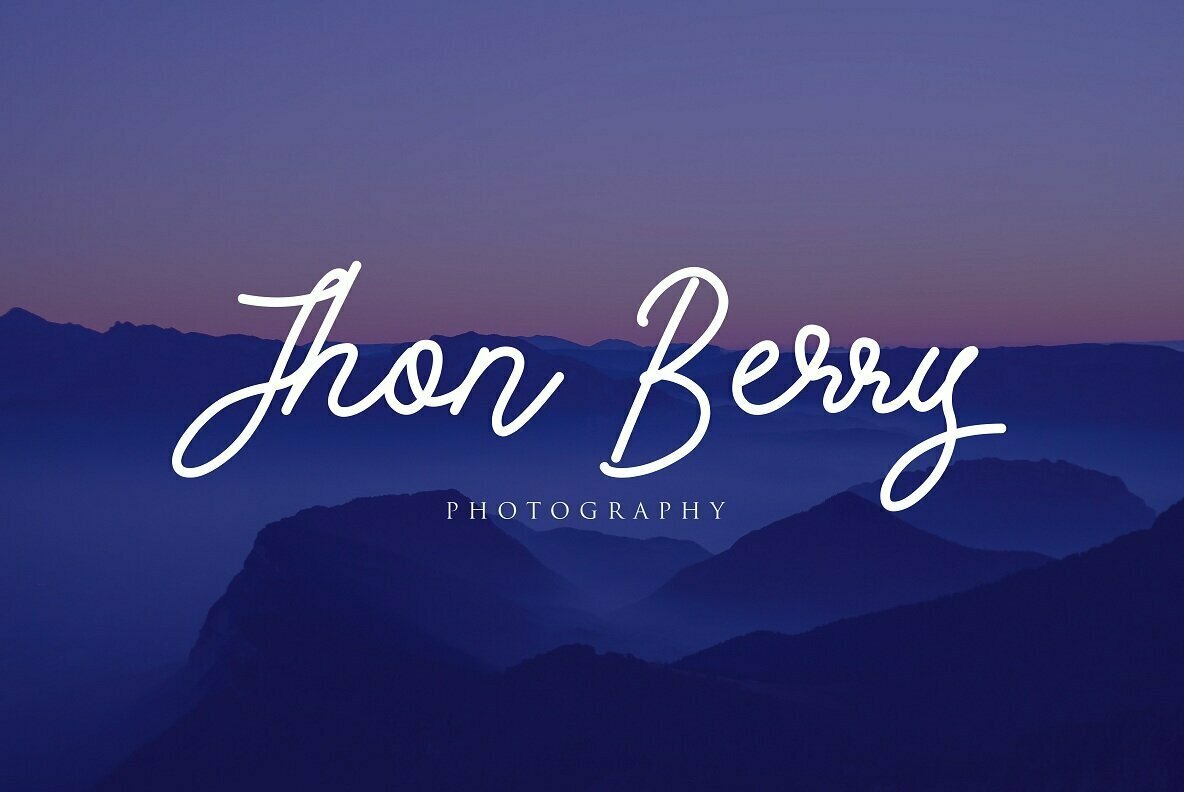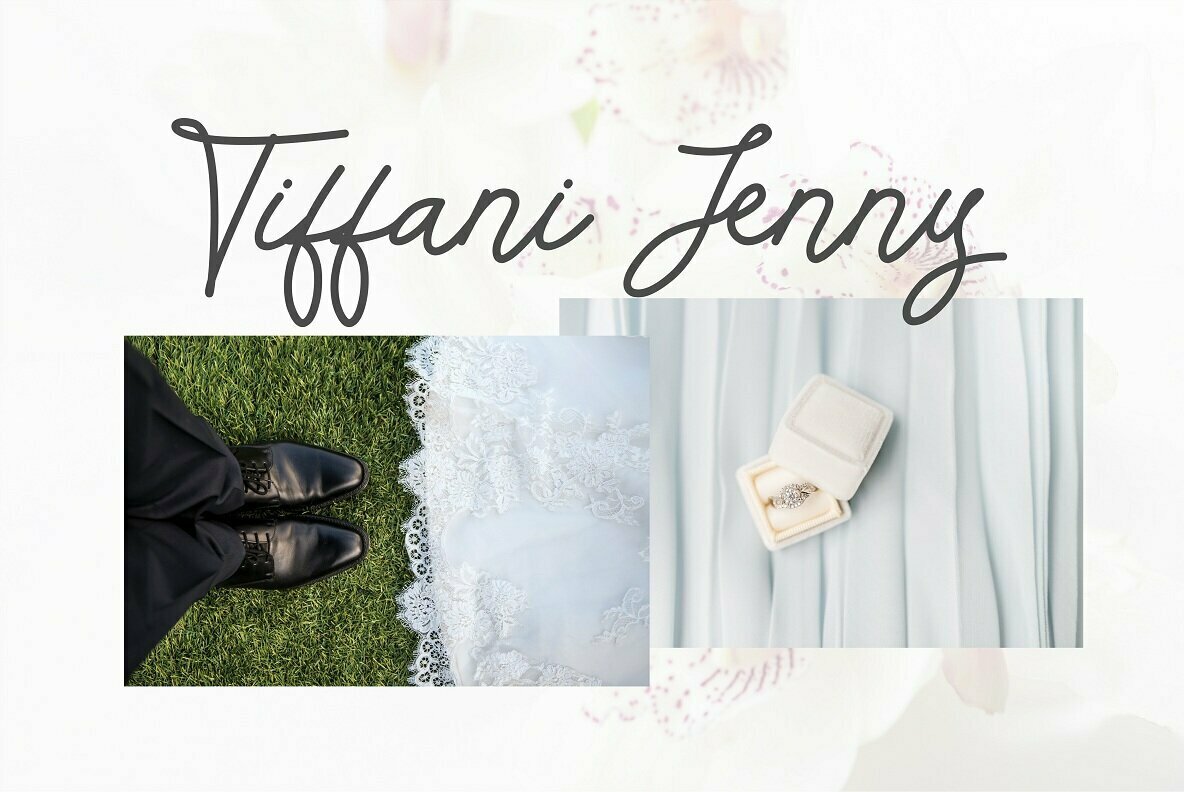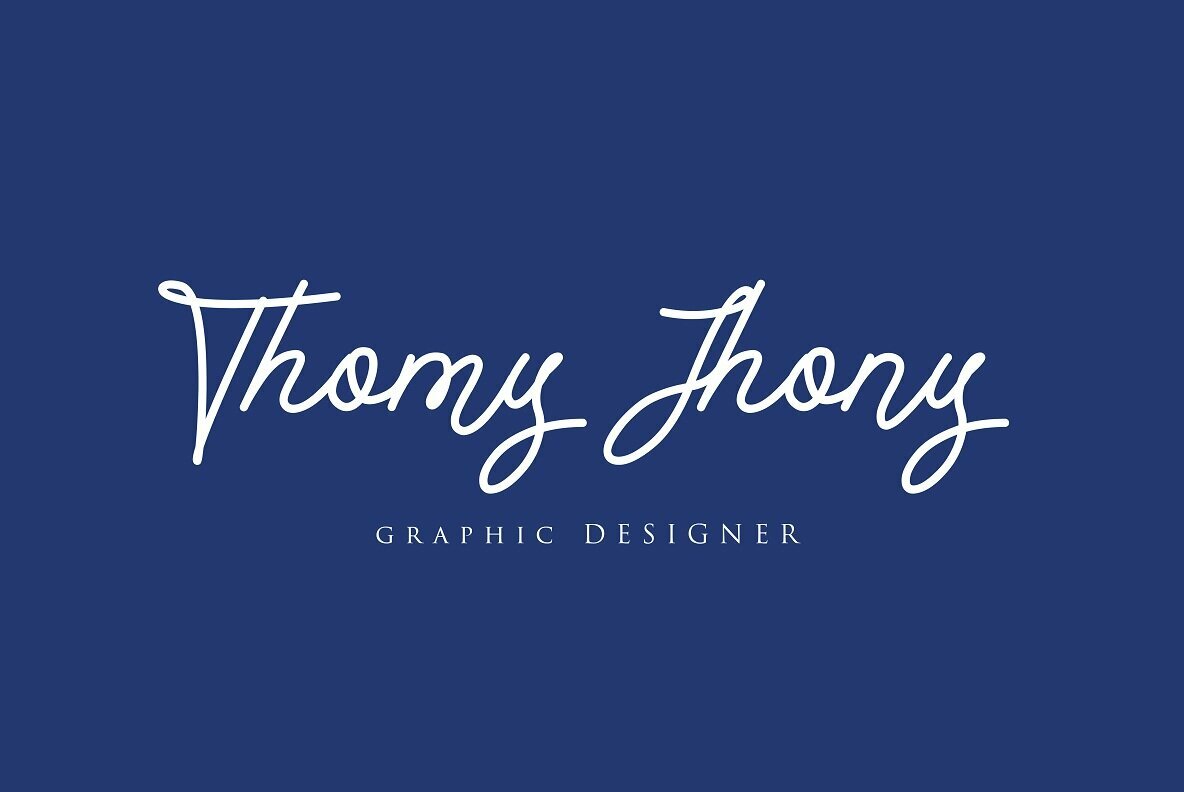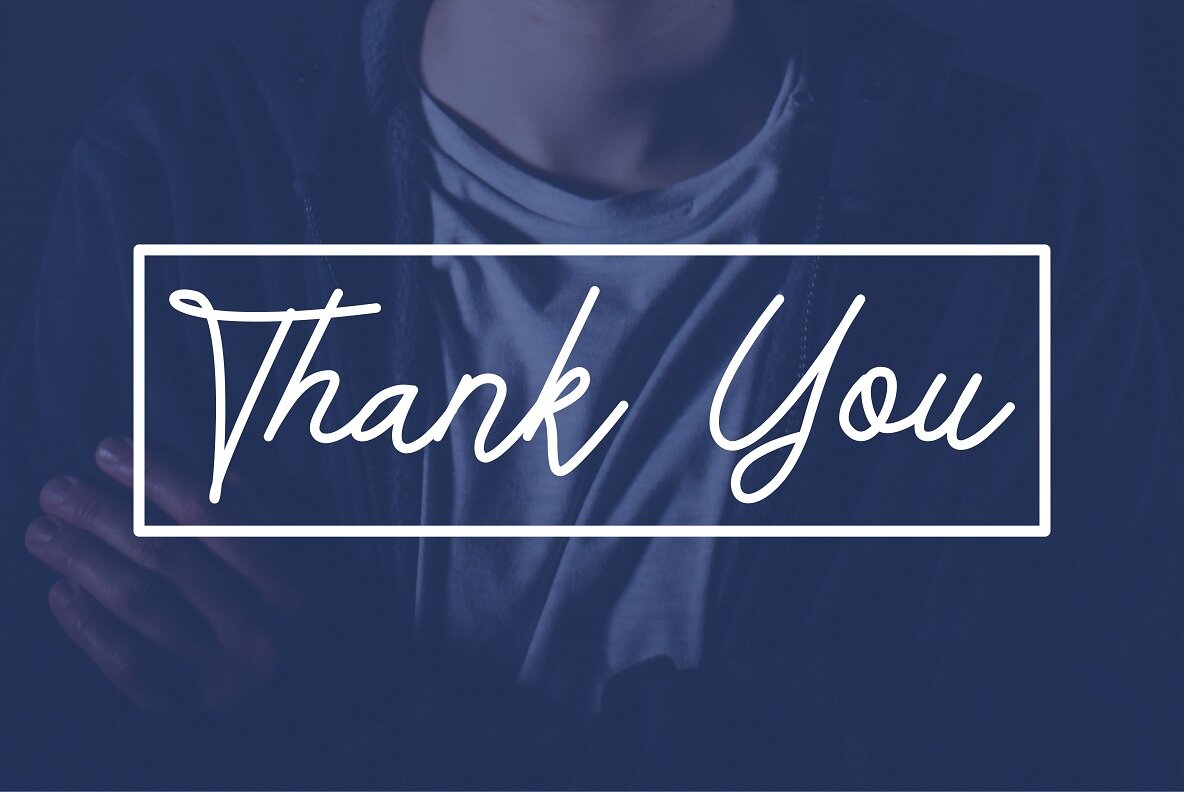
Andalusia Handwritten Font: Effortlessly Chic
The Andalusia font by Sabrtype Studio offers a stylish take on handwritten typography. Its simple yet elegant lines make it a versatile choice for various creative projects, from branding to photography.
• Natural Style – Offers a clean and sophisticated appearance.
• Versatile Use – Ideal for logos, signatures, and other branding elements.
• Fashionable Appeal – Adds a contemporary touch to visual designs.